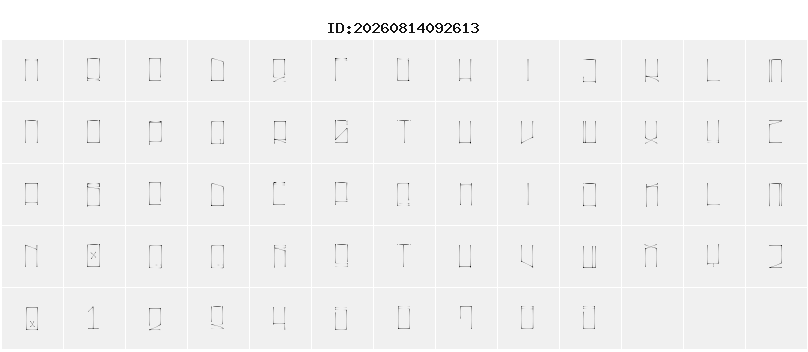
• Font Name: Suecos Locos
• Designer: Måns Grebäck
About Suecos Locos.ttf
Suecos Locos.ttf is a modern, elegant sans-serif font designed for ultimate readability and visual harmony. Perfect for branding, headlines, web design, and print materials.